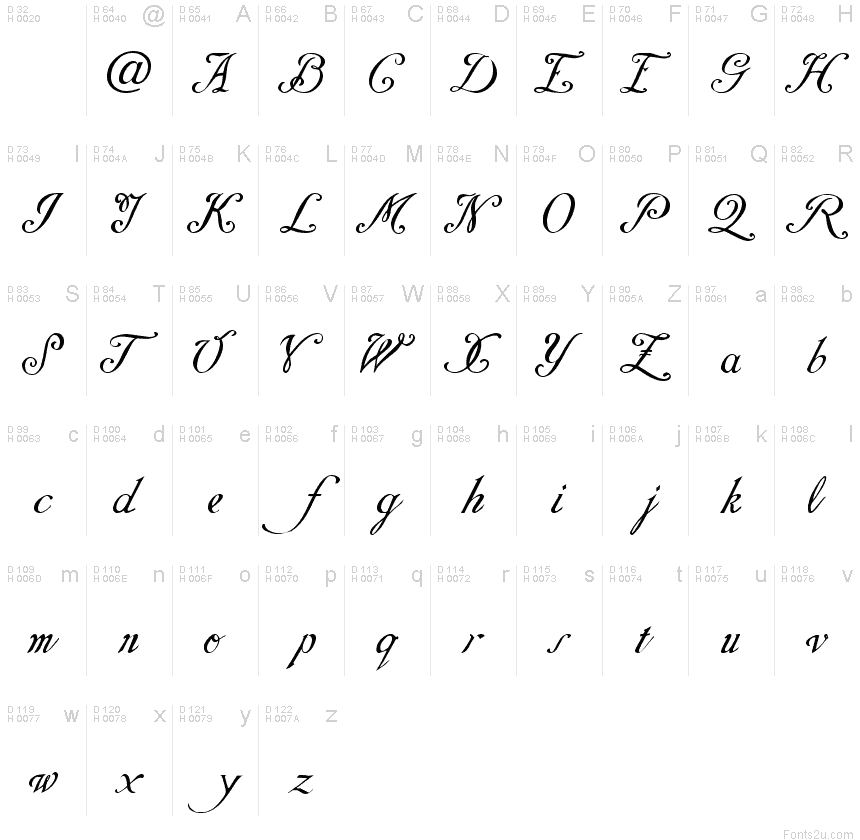
Daresiel Demo
Daresiel font by David F. Nalle of Scriptorium Fonts is a free calligraphy typeface that feels like ink swept across thick cotton paper. Its flowing strokes, generous curves, and slightly dramatic slant give it a ceremonial, almost storybook presence—elegant without feeling stiff. The letters seem to gather momentum from left to right, creating a graceful rhythm that instantly elevates a short word or a full line of text.
Using Daresiel, this free font shines on wedding invitations, event stationery, certificates, boutique branding, book covers, and romantic quote graphics. It works beautifully at larger sizes where its looping forms can really breathe. Pair this script with a quiet, clean serif or sans for supporting text, keeping Daresiel for names, titles, and key phrases that need a touch of flourish.